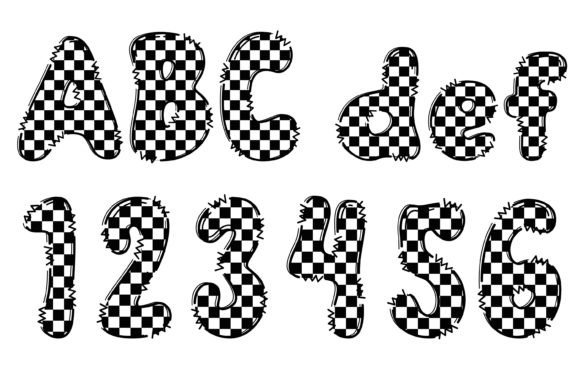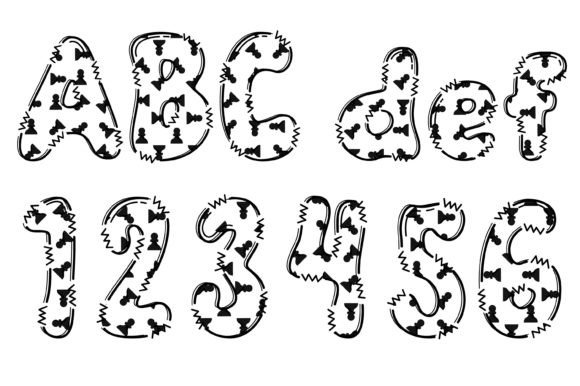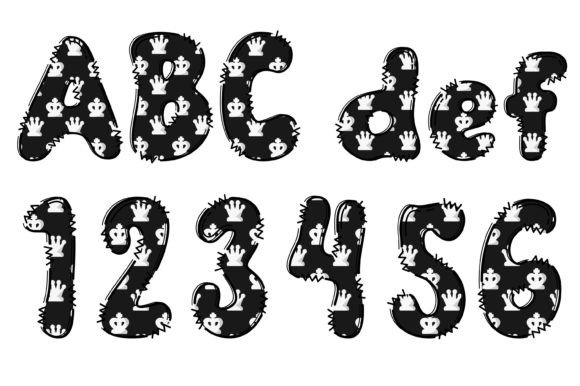
Introducing the Chess Bundle Font: A Playful and Artistic Addition to Your Design Arsenal
Are you a designer, crafter, or DIY enthusiast looking for a font that can add a touch of playfulness and artistic flair to your projects? Look no further than the Chess Bundle Font! This versatile font bundle is perfect for a wide range of design applications, from children’s books and posters to invitations, greeting cards, and more.
What is the Chess Bundle Font?
The Chess Bundle Font is a unique and creative font that combines the classic feel of a chess-inspired design with a modern, playful twist. The font comes in two versions: a black version and a color version. The black version is compatible with Cricut Design Space and other cutting machines, making it perfect for crafters and DIY enthusiasts. The color version, on the other hand, is compatible with certain design programs, including PhotoShop, Illustrator, Silhouette, and Inkscape.
Uses for the Chess Bundle Font
So, what can you use the Chess Bundle Font for? The possibilities are endless! Here are a few ideas to get you started:
- Children’s Books: The Chess Bundle Font is perfect for creating engaging and interactive children’s books. The font’s playful and whimsical design makes it easy to read and fun for young audiences to follow along.
- Posters and Flyers: Add a touch of personality to your posters and flyers with the Chess Bundle Font. Its unique design makes it perfect for promoting events, products, or services in a creative and eye-catching way.
- Invitations and Greeting Cards: The Chess Bundle Font is ideal for creating custom invitations and greeting cards for special occasions. Its playful design makes it perfect for birthdays, holidays, and other celebrations.
- Crafting and DIY Projects: The black version of the Chess Bundle Font is compatible with Cricut Design Space and other cutting machines, making it perfect for crafters and DIY enthusiasts. Use it to create custom signs, banners, and other decorative items.
Key Features of the Chess Bundle Font
Here are some key features of the Chess Bundle Font:
- Playful and Artistic Design: The Chess Bundle Font features a unique and creative design that’s perfect for adding a touch of playfulness and artistic flair to your projects.
- Black and Color Versions: The font is available in both black and color versions, giving you flexibility and options for your designs.
Tips for Using the Chess Bundle Font
Here are some tips for getting the most out of the Chess Bundle Font:
- Experiment with Colors: The color version of the font offers a range of possibilities for adding color and personality to your designs. Experiment with different colors and combinations to find the perfect look for your project.
- Mix and Match: Don’t be afraid to mix and match the Chess Bundle Font with other fonts and design elements to create a unique and eye-catching look.
The Chess Bundle Font is a versatile and creative font that’s perfect for designers, crafters, and DIY enthusiasts. Its playful and artistic design makes it ideal for a wide range of design applications, from children’s books and posters to invitations and crafting projects. With its multiple formats, compatibility with cutting machines and design programs, and tips for use, the Chess Bundle Font is a must-have addition to your design arsenal.